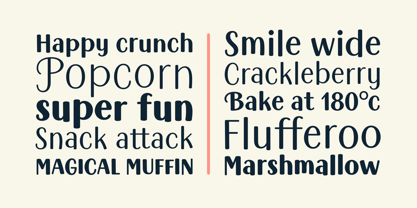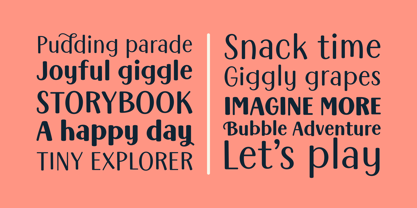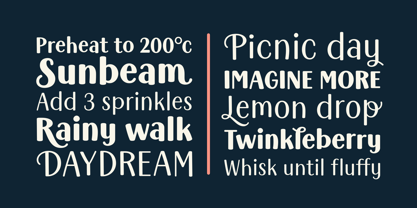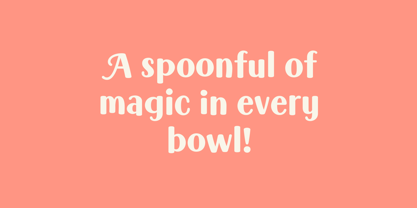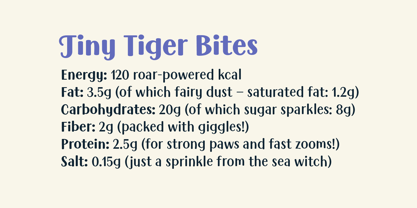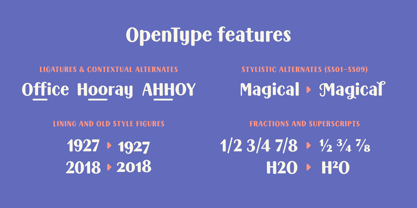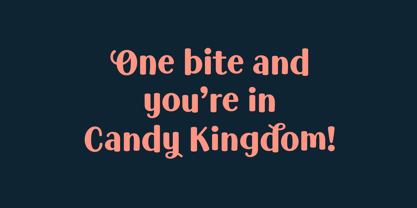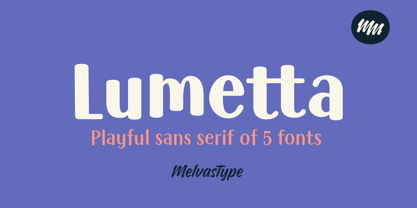
Lumetta
by Melvastype
The Lumetta Font Family was designed by Mika Melvas and published by Melvastype. Lumetta contains 5 styles and family package options. More about this family
Say hello to Lumetta – a cheerful serif full of bounce, charm, and warmth. With its smooth curves, expressive swashes, and a generous collection of alternates, Lumetta was made to shine on packaging, storybooks, and anything that needs a spark of friendliness.
From smart ligatures to playful stylistic sets, Lumetta adapts with personality. Need something elegant? Try the classic forms. Want flair? Flip on the swashes or quirky stylistic sets for instant fun. It also comes packed with typographic features like oldstyle figures, fractions, and superscripts – all wrapped in a lovingly drawn design.
Contextual Alternates (calt)
Letters subtly shift shape to create smoother, more natural-looking words. Lumetta includes two sets of upper- and lowercase letters, which automatically mix to add rhythm, bounce, and a playful flow to your text – perfect for cheerful titles and lively packaging.
Ligatures (liga, dlig)
Natural letter pairs like ff, fl, and custom combos flow effortlessly.
Contextual Alternates (calt)
Letters subtly shift shape to create smoother, more natural-looking words.
Stylistic Sets (ss01–ss09)
Want more flair? Switch styles with a click – loopier tails, bouncier forms, or subtle twists.
Swashes & Alternates (ss04–ss09)
Add expressive swashes to capital letters or bring drama to end letters.
Lining and Oldstyle figures
Toggle between lining (lnum) and oldstyle (onum) numerals, tabular and proportional, or create fractions (frac) on the fly.
Super & Subscripts (sups, subs)
Perfect for ingredients, footnotes, or science-y moments.